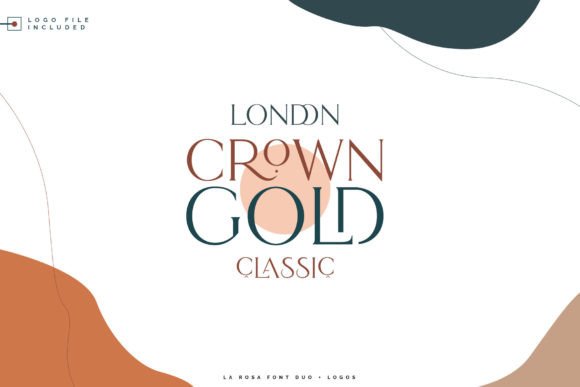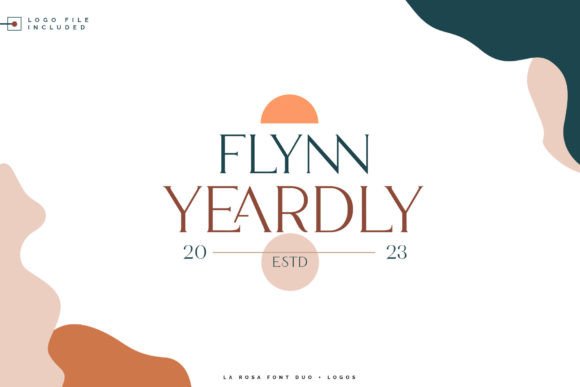
La Rosa Duo Font
La Rosa is a stunning ligature font duo (serif and script), with 30 amazing chic logo templates. With this elegant font, you can explore your creativity in an unlimited way. To recreate your brand all you need is to mix and match the La Rosa fonts.
La Rosa is also PUA encoded which means you can access all the glyphs and ligatures with ease!